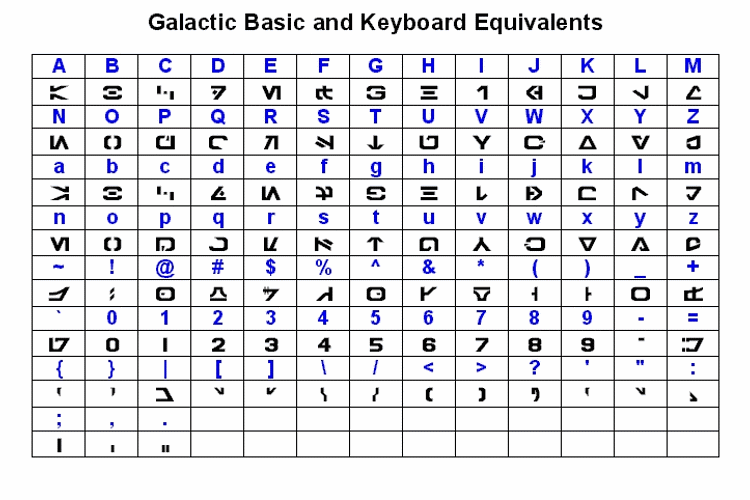
Galactic Basic Font
About Galactic Basic Font
This font is based on - but differs slightly from - the Aurebesh
lettering created by West End Games. My focus has been to accurately
populate this font with letters that are seen in the movies of the
original trilogy. After close examination of screenshots and officially
available information, many letters have been revised or replaced.
Letters that do not appear in the trilogy were replaced. These include:
Grek, Jenth, Osk, and Resh. (If you don't know what any of these letter
names mean, don't worry about it; this info is for the Aurebesh
purists.) Grek has been replaced with a modified version of Enth. Osk
has been replaced with Orenth. Resh has been replaced by Nen. Jenth has
been replaced with an entirely new letter, which I refer to as Jul. All
other letters have been severely modified for accuracy. Arabic numerals
(1,2,3, etc) have been used in the font, since Arabic numerals were used
in the original trilogy. See the attached galbasic_table.gif for a full
table of Galactic Basic letters and their respective keys.
NOTE: This font is simply a personal interpretation. It will not allow
you to translate anything seen in the movies. I apologize if your
favorite letters have been changed or removed.